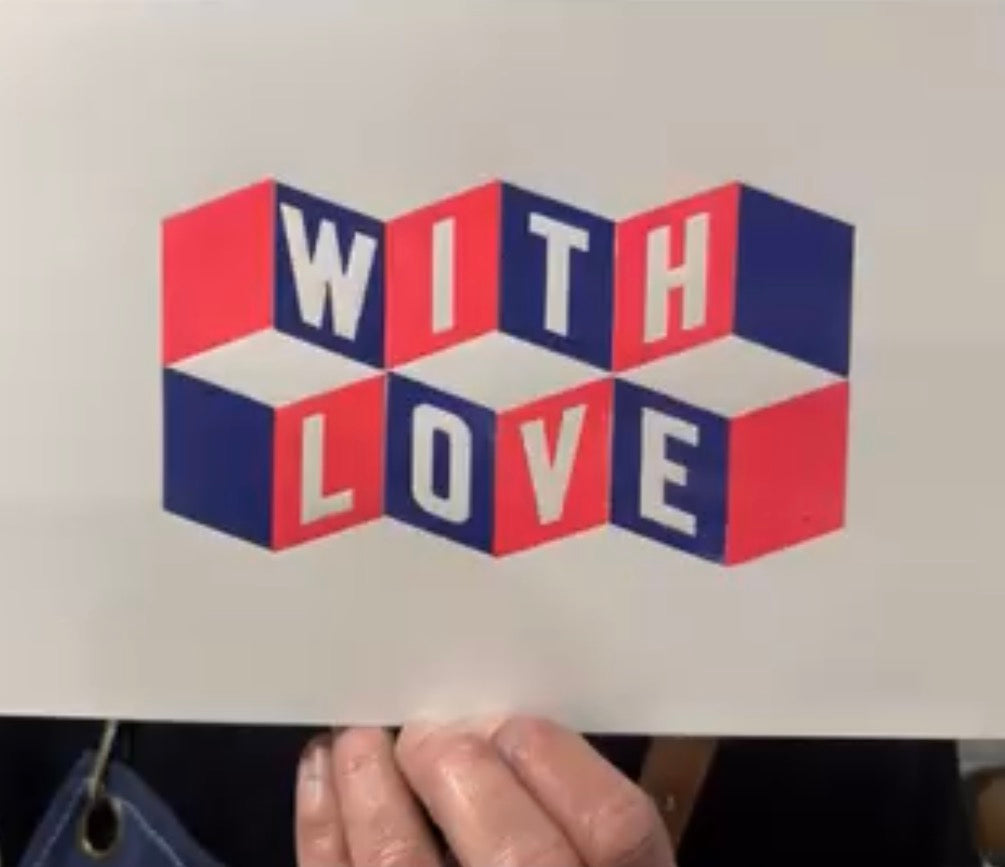
'Koncertina' letterpress woodtype typeface
Introducing 'Koncertina' - designed by Mark McKellier.
Available in 10 line (42.3mm) version cut from end grain English hardwood using a combination of modern CNC technology and traditional hand woodworking tools (including an original printers saw), made to English type-high (0.918in or 23.3mm) within plus or minus 0.1mm tolerance, sealed with shellac and hand finished with a traditional polished printing surface.
The 10 line size is available as a 2 colour 4A scheme (2A of solid 'down', 2A of solid 'up' - you need both to achieve the concertina effect) - 72 blocks. Please see scheme details on the left. 10 blank blocks are included (5 solid 'up', 5 solid 'down') so the flow of the concertina isn't broken. I'm happy to make spacing for you if required to make working in two colours easier - let me know when placing an order.
Each block is the same size.